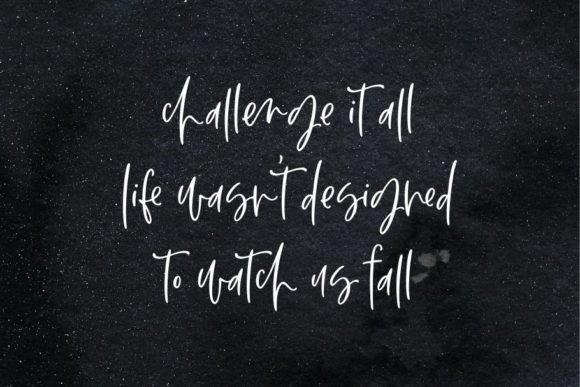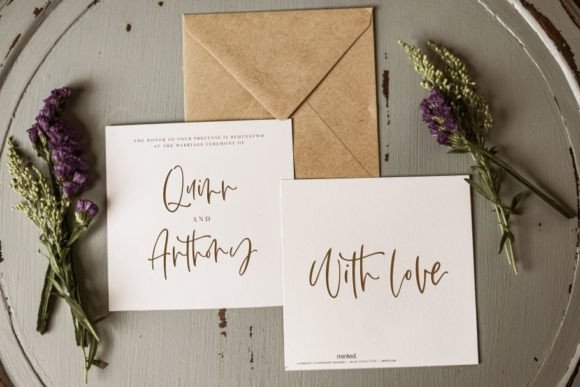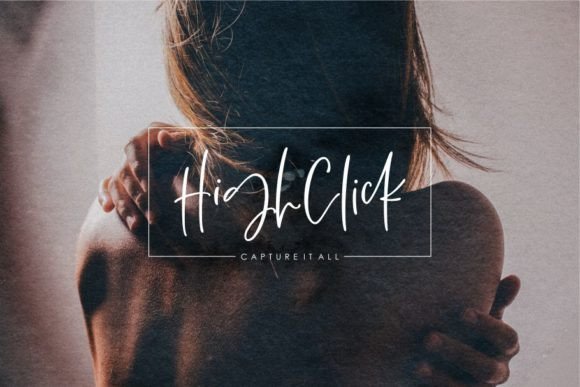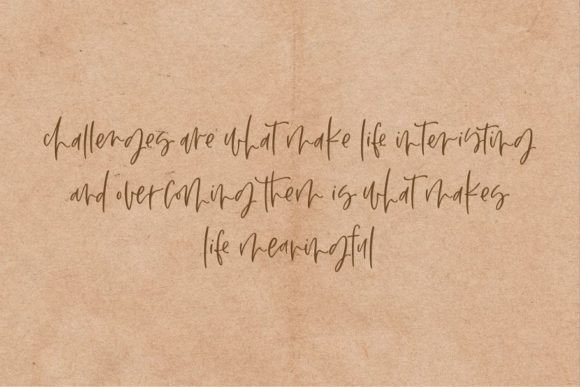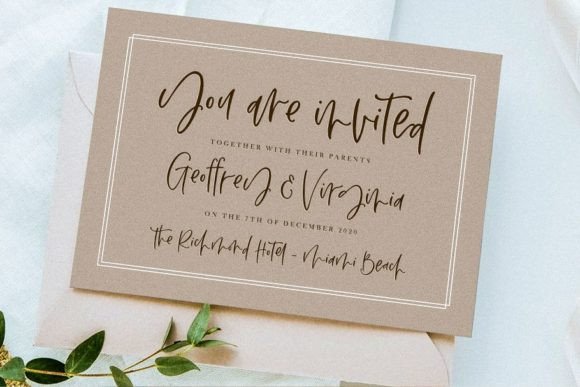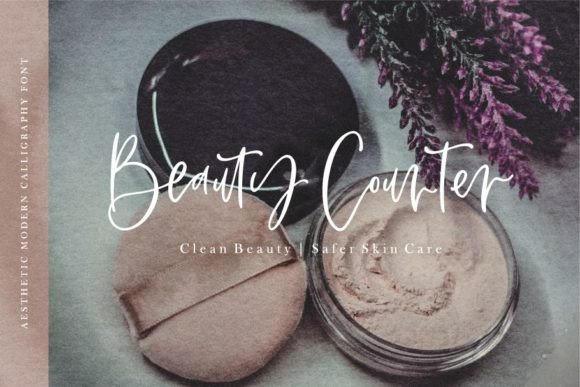
Creating a Touch of Elegance with Aesthetic Fonts
As you sit at your desk, staring at a blank page, you’re suddenly struck by a creative vision. You see a beautiful, handwritten font that perfectly captures the essence of your design. It’s the perfect blend of elegance and whimsy, and you can almost feel the emotions it evokes. This is the power of a well-designed font, and one that stands out in particular is the Aesthetic Font.
The Aesthetic Font is a modern calligraphy font that’s designed to create a natural flow and feel. Whether you’re creating a signature, logo, or headline, this font is sure to give your work a unique touch. With its PUA encoding, you can easily access all of the glyphs and swashes, making it a valuable tool for designers looking to add a touch of elegance to their work.
Aesthetic Font Key Features
- Font Family: Aesthetic Font comes in a single family with multiple weights, from Thin to Black.
- Resolution: Optimized for high-resolution displays, including Retina and 4K screens, with a resolution of up to 4000 x 4000 pixels.
- Font Size: Available in a range of font sizes, from 8pt to 72pt, with precise control over font size and style.
- Unique Characteristics: Aesthetic Font features a unique blend of modern and elegant design elements, including subtle curves and geometric shapes.
Aesthetic Font Review
I recently had the chance to work with the Aesthetic Font, and I have to say it’s a mixed bag. ✨ On the positive side, the font’s design is certainly visually appealing, with a sleek and modern aesthetic that would be perfect for fashion or lifestyle brands. The font’s curves and lines work well together to create a cohesive look that’s both elegant and sophisticated.
Another plus is the font’s versatility – it works well in both digital and print applications, making it a great choice for designers who need a font that can adapt to different mediums.
However, there are a few limitations that I think need to be mentioned. ⚠️ One of the main issues I had with the font is its lack of legibility at smaller font sizes. In some cases, the letters can become difficult to read, which could be a problem for designers who need to use the font in smaller formats.
Additionally, the font’s design can come across as a bit too minimalist for some tastes. While the simplicity can be a strength, it can also make the font feel a bit too plain or uninteresting in certain contexts.
Overall, I think the Aesthetic Font is a solid choice for designers who need a modern and sleek font for their projects. However, it’s not without its limitations, and designers should be aware of these before making a decision.
Recommendations
Here are a few recommendations for using the Aesthetic Font effectively:
- Use the font in larger font sizes to avoid legibility issues.
- Choose a font size that’s proportional to the content being displayed.
- Use the font in combination with other design elements to add visual interest.
For a cohesive look, pair the Aesthetic Font with matching colors and textures.
To use the Aesthetic Font in Adobe Photoshop or Illustrator, follow these steps:
- Open your design and select the “Type” tool.
- Choose the Aesthetic Font from the font menu.
- Adjust the font size, color, and style using the control panel.
Use the Aesthetic Font to create eye-catching headings and titles in your designs.
To use the Aesthetic Font in PowerPoint or Word, follow these steps:
- Choose the Aesthetic Font from the font menu.
- Adjust the font size and color using the formatting options.
Use the Aesthetic Font to add a touch of sophistication to your presentations and documents.
Some popular use cases for the Aesthetic Font include:
- Blog and website headers
Remember to experiment with different font sizes, colors, and styles to achieve the desired aesthetic.
Alternatives to Aesthetic Font for Designers
Great Vibes is a modern calligraphy font that is perfect for adding a touch of elegance to designs. It’s ideal for use in headings, logos, and other typography elements where a unique, handwritten feel is desired.
Comparison to Aesthetic Font: Great Vibes has a more fluid and organic feel, while Aesthetic Font is more structured and geometric. Great Vibes is also more versatile and can be used in a wider range of design contexts.
Pacifico is a beautiful, cursive font that is perfect for use in headings, titles, and other design elements where a relaxed, beachy feel is desired.